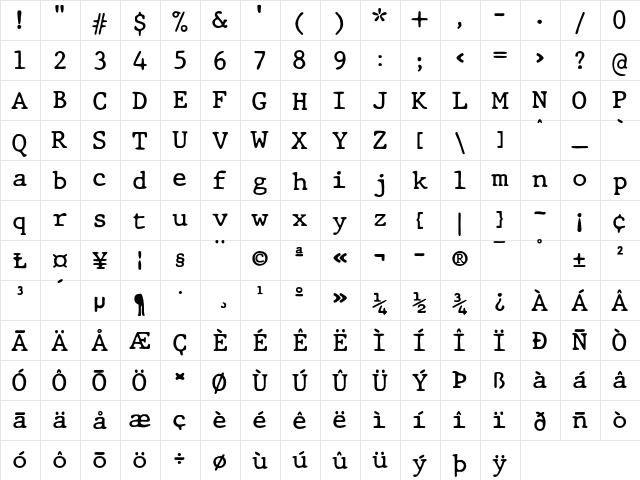
JMH Typewriter dry Regular
Design Context for JMH Typewriter dry Typeface
JMH Typewriter dry brings the precise, column-aligned rhythm of monospaced typography to designs that value technical clarity and systematic order.
Pro Tip: Pair JMH Typewriter dry with a proportional sans for UI contexts where code-style labels and regular body copy need to coexist.